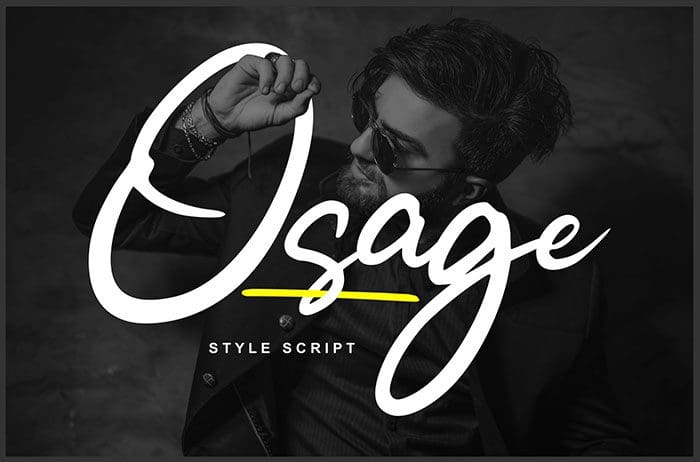
Osage Style Script Font
Osage is a playfully modern style script font with a cute feel. Perfect for packaging, invitations, business cards, branding, and more. Thanks to Vunira for sharing this font. This font free for personal use only, if you need commercial use and full version please download in here.